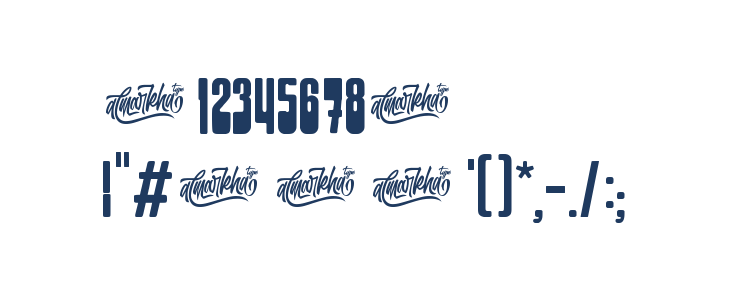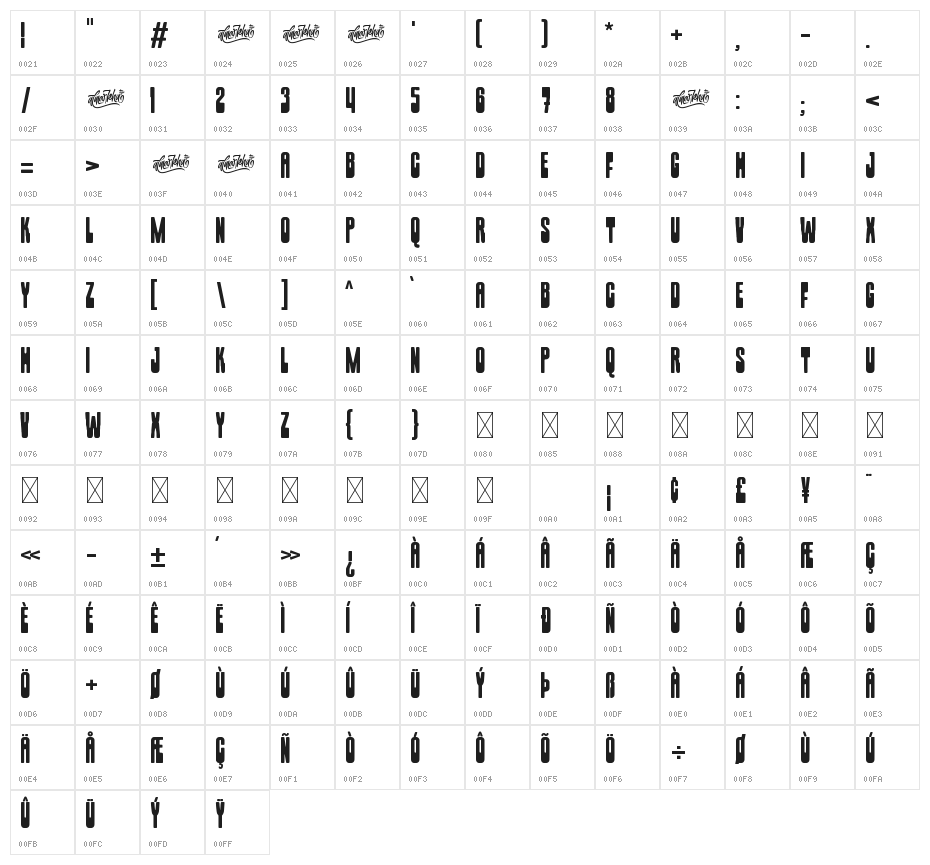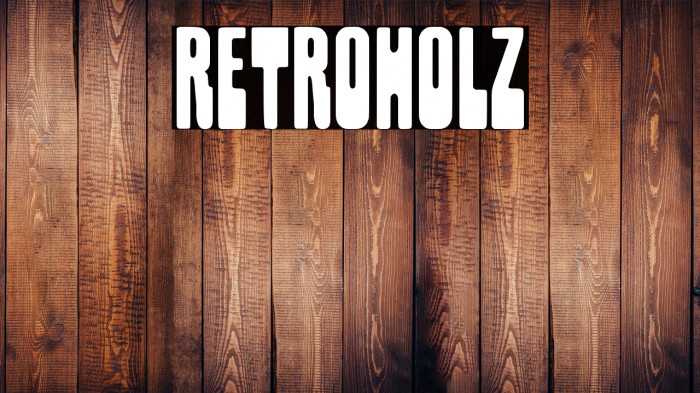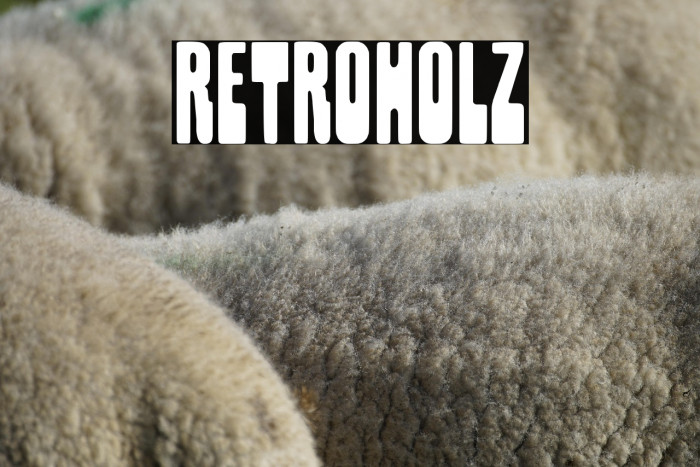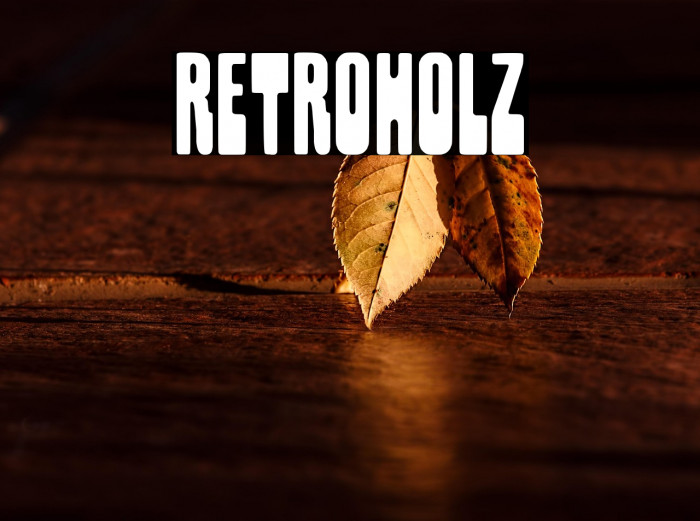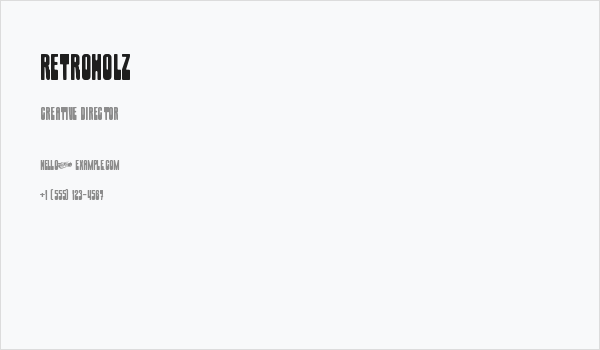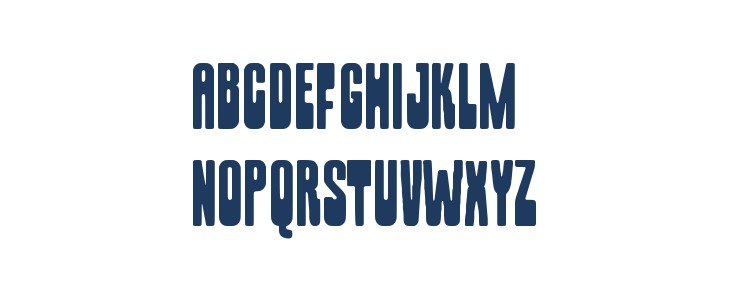
Retroholz Font
Retroholz Description
This font exhibits a bold and impactful style with a distinctly retro flair. The uppercase letters are characterized by thick, block-like forms that convey a sense of strength and stability. The lowercase letters maintain the same boldness, ensuring consistency across the typeface. The numbers are equally robust, making them stand out prominently. Special characters are included, adding versatility to the font's application. The overall design is reminiscent of vintage signage or posters, offering a nostalgic yet modern appeal. Its bold strokes and solid presence make it ideal for attention-grabbing headlines or logos.